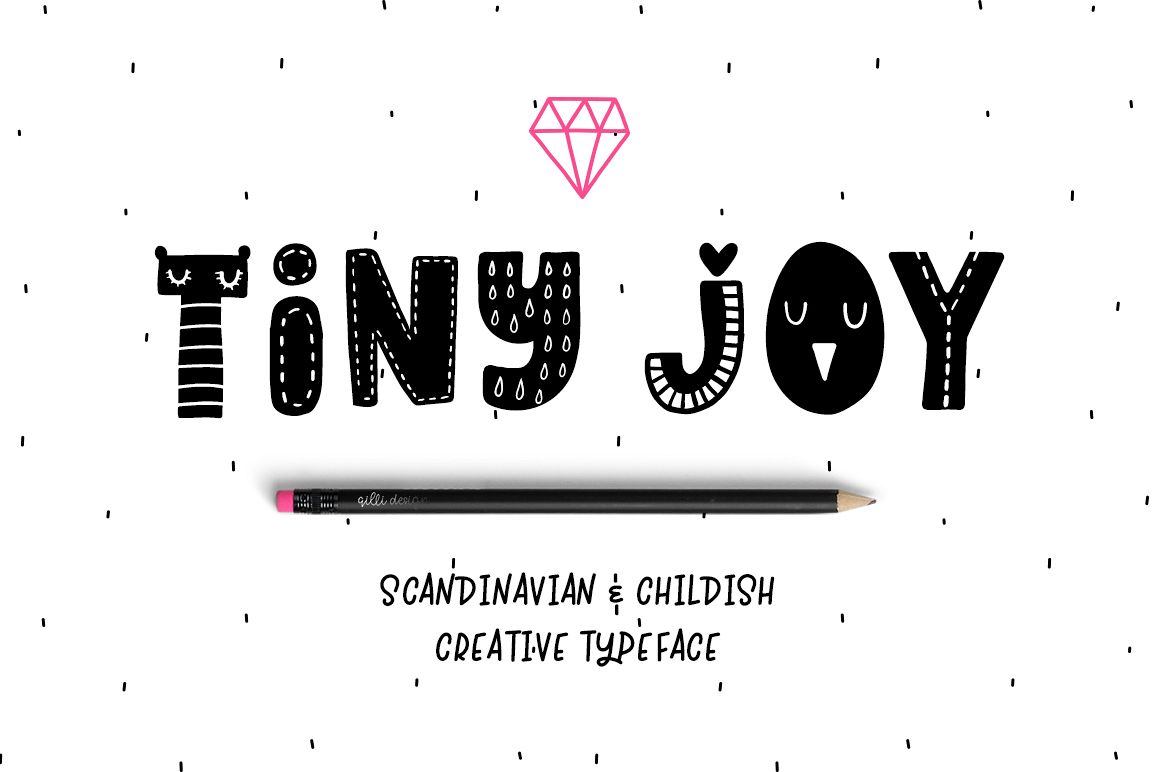
Tiny Joy Font - Scandinavian & Kids
♥ Tiny Joy Font - Scandinavian & Kids typeface! Font for your funny projects! ♥
This script is perfect for cards, prints, logos, invitations, arrange illustration and decoration. It has upper and lower case letters, numbers, special characters, accents. Perfect for Children!